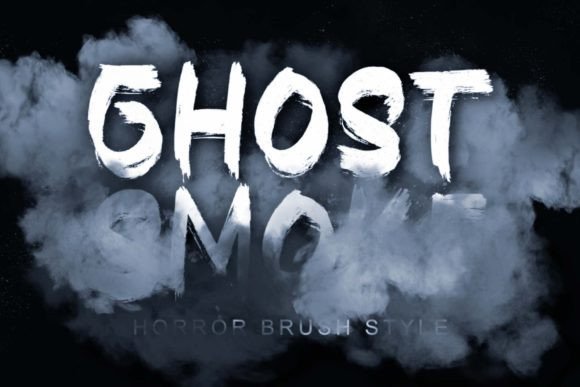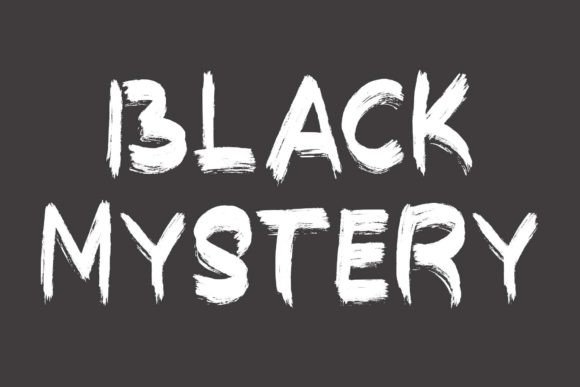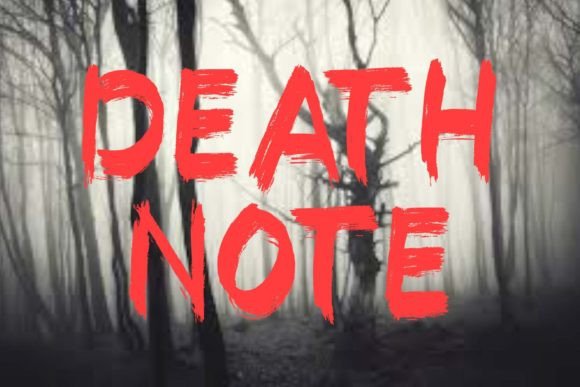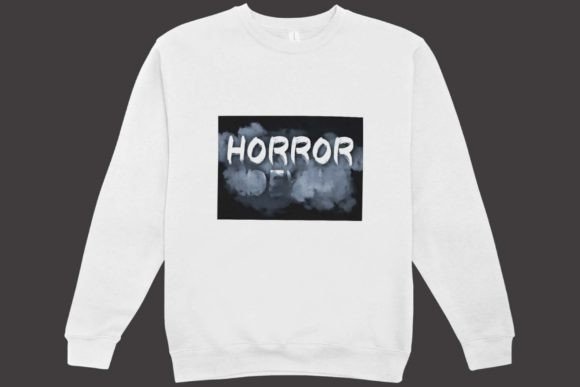
Ghost Smoke Font
About the Ghost Smoke Font
Add a touch of class to your work with the Ghost Smoke Font, a truly exceptional typeface. “Ghost Smoke” is an elegant and unique horror font. This font is equipped with uppercase, lowercase, numerals, punctuations and multilingual support. Very suitable for Halloween, horror films, Christmas, devil, spooky fonts, paint fonts, branding, stickers, posters, prints, banners and others.
Its strong, stylized forms make “Ghost Smoke” ideal for headlines, posters, and branding projects requiring a dramatic, attention-grabbing presence. It excels in short impactful statements, logos, and packaging design where a touch of eerie elegance is desired. However, its intricate details and high contrast make it less suitable for body text or UI elements where readability is paramount.
For a balanced aesthetic, pair “Ghost Smoke” with a clean sans-serif like Open Sans for body copy, or a classic serif such as Garamond for a more traditional feel. If a more playful contrast is desired, consider pairing it with a rounded geometric sans-serif. The font’s inherent boldness means that its partner should offer a visual counterpoint that avoids visual competition.
The overall personality of “Ghost Smoke” is bold, dramatic, and slightly mysterious, lending itself well to projects with a gothic, horror, or fantasy theme. This makes it a perfect choice for brands aiming for a sophisticated yet unsettling image.
Ghost Smoke Font Usage Examples
Ghost Smoke Font Example